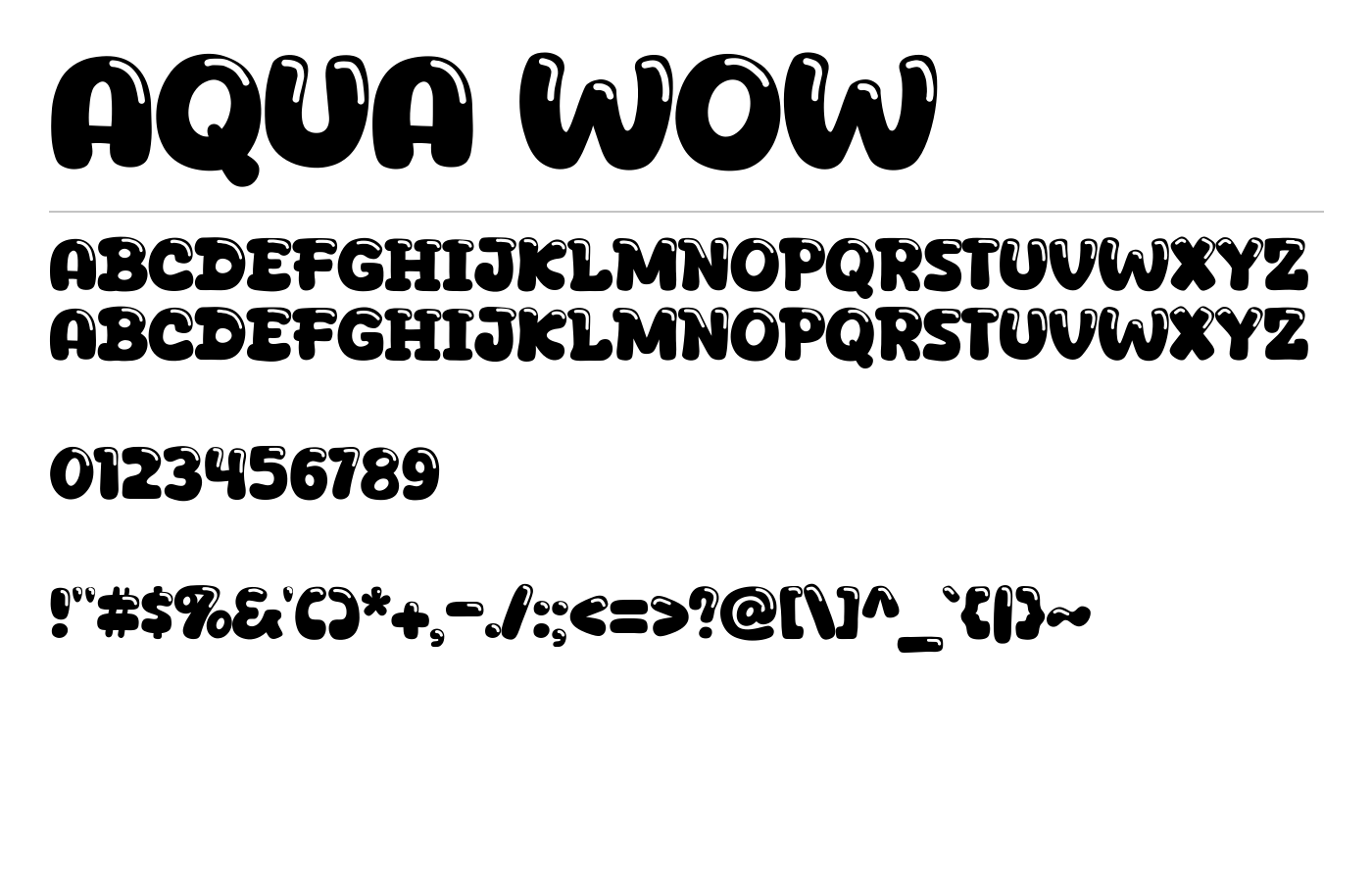
Aqua Wow is a playful, bold display font with rounded, bubbly forms and a high x-height that creates an inviting, fun atmosphere. Its thick strokes and unique water-drop details give it a lively, cartoon-like character perfect for eye-catching headlines, kids’ products, and creative branding that needs a cheerful, friendly vibe. This font works best where personality and bold impact are key, such as posters, packaging, and informal logos.
Aqua Wow Font
About Aqua Wow Font
| Font family | Aqua Wow Font |